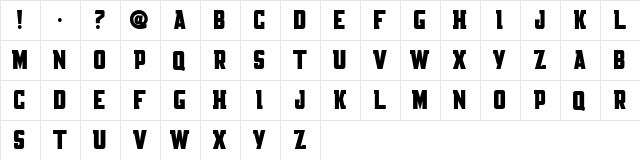
Knackpack_Std_Reg_DEMO Regular
| Foundry | Knackpack Studio |
| Designer | Knackpack Studio |
Knackpack_Std_Reg_DEMO offers clean, dependable letterforms without strong stylistic allegiance, making it a practical choice for designers who need flexibility.